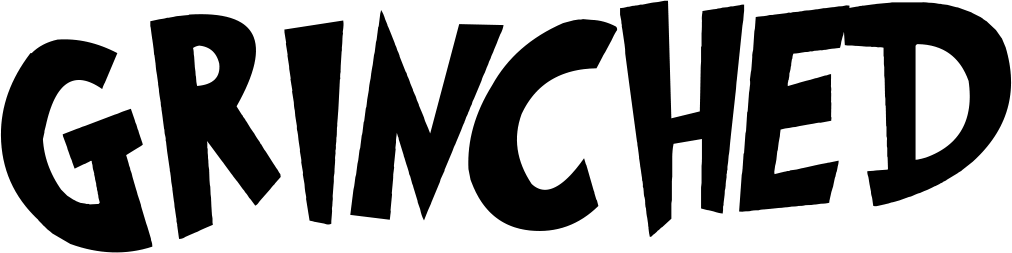
Grinched Font
Need a bit of groove on your text and don’t know how to do it? Grinched may be what you seek. This playful font with its unique design conveys a fun and cheerful feeling to the reader. You can use it for product packaging, advertisements, channel banners, and children’s books.